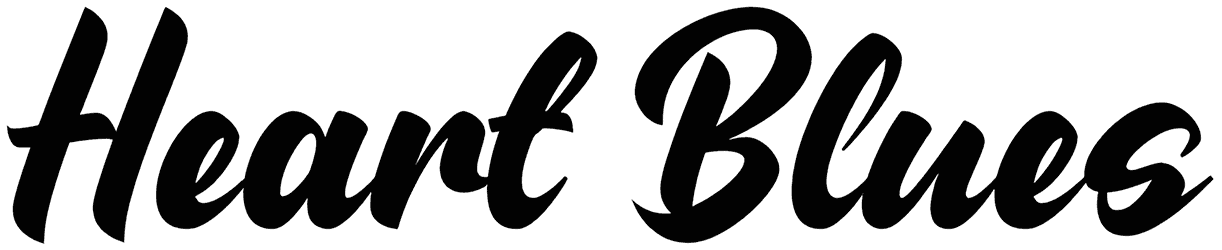
Heart Blues Font
This nice script font is ideal for whatever project you have in mind especially friendly and informal! It doesn’t matter whether you want to produce stunning covers and logos or just want to inject some personality into your text; Heart Blues font is the way to go. Now is a great time to add this bold font to your font collection!